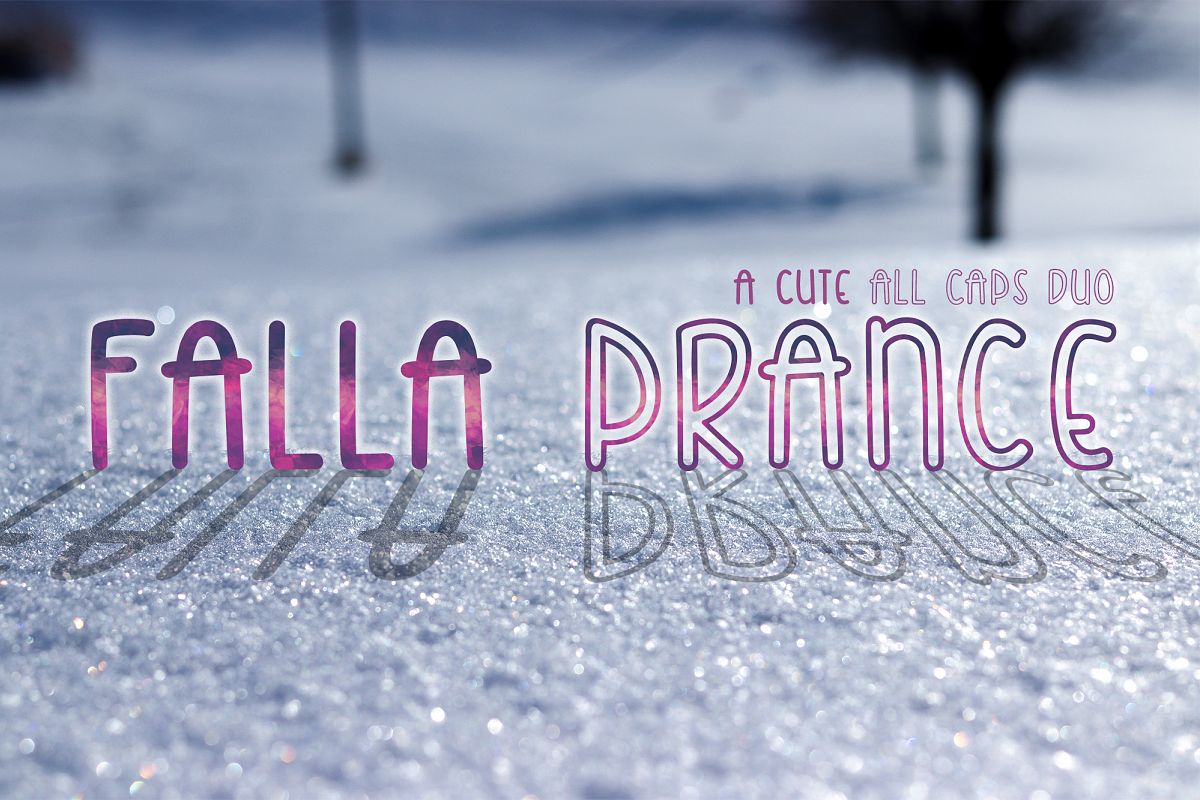
Falla Prance | A cute all caps duo font| Monoline Font
Here is a cute bold and outlined all caps font! <3 Perfect for any occasion and goes well with my lala prance font!